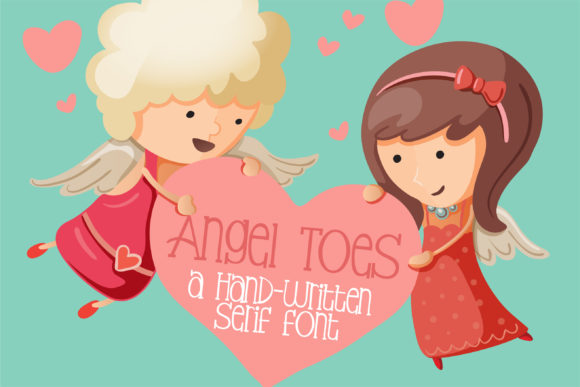
Angel Toes Font: The Ultimate Guide to This Cute and Casual Handwritten Font
Are you looking for a font that can add a touch of playfulness and whimsy to your designs? Look no further than Angel Toes Font! This cute and casual handwritten font is perfect for any design project, from branding and advertising to packaging and digital media. In this article, we’ll take a closer look at Angel Toes Font, its features, and how you can use it to take your designs to the next level.
What is Angel Toes Font?
Angel Toes Font is a handwritten font that is characterized by its playful and casual style. It’s a font that is designed to look like it was written by hand, with a carefree and spontaneous feel. The font is made up of rounded letters and subtle imperfections, giving it a charming and endearing quality.
Features of Angel Toes Font
So, what makes Angel Toes Font so special? Here are some of its key features:
- Playful style: Angel Toes Font has a playful style that is perfect for designs that need a touch of whimsy and fun.
- Cute and casual: The font has a cute and casual feel that makes it perfect for a wide range of design projects.
- Handwritten look: The font is designed to look like it was written by hand, giving it a personal and spontaneous feel.
- Rounded letters: The font features rounded letters that give it a soft and friendly feel.
- Subtle imperfections: The font has subtle imperfections that give it a charming and endearing quality.
Uses of Angel Toes Font
Angel Toes Font is a versatile font that can be used for a wide range of design projects. Here are some of the ways you can use it:
- Branding and advertising: Use Angel Toes Font to create playful and eye-catching branding and advertising materials, such as logos, billboards, and magazine ads.
- Packaging design: The font is perfect for packaging design, adding a touch of whimsy and fun to product labels and packaging.
- Digital media: Use Angel Toes Font to create engaging and playful digital media, such as social media graphics, blog posts, and website headers.
- Stationery and invitations: The font is perfect for creating playful and charming stationery and invitations, such as birthday cards and wedding invitations.
Why Choose Angel Toes Font?
So, why should you choose Angel Toes Font for your design projects? Here are some reasons:
- Unique and eye-catching: The font has a unique and eye-catching style that will make your designs stand out.
- Playful and whimsical: Angel Toes Font adds a touch of playfulness and whimsy to your designs, making them more engaging and fun.
- Easy to read: The font is easy to read, even in small sizes, making it perfect for a wide range of design projects.
- Versatile: Angel Toes Font is a versatile font that can be used for a wide range of design projects, from branding and advertising to packaging and digital media.
How to Use Angel Toes Font
Using Angel Toes Font is easy! Here are some tips:
- Choose the right size: Choose a size that is easy to read, but also large enough to make an impact.
- Pair with other fonts: Pair Angel Toes Font with other fonts to create a unique and eye-catching combination.
- Experiment with colors: Experiment with different colors to find the one that works best for your design.
- Use it consistently: Use Angel Toes Font consistently throughout your design project to create a cohesive look.
Angel Toes Font is a cute and casual handwritten font that is perfect for any design project. Its playful style makes it perfect for adding a touch of whimsy and fun to your designs. With its unique and eye-catching style, ease of use, and versatility, Angel Toes Font is a great choice for designers looking to take their designs to the next level. So why not give it a try and see how it can transform your designs?